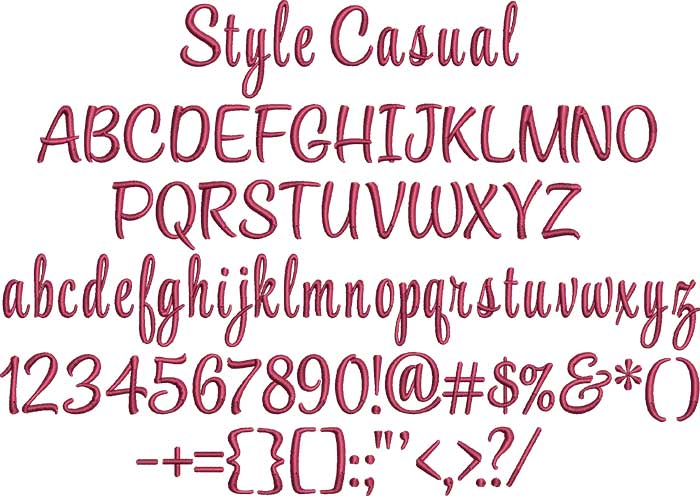
BX Embroidery Font: Style Casual
BX Embroidery Font: Style Casual (4 sizes) is a casual script machine embroidery font that includes A-Z, a-z, 0-9 and punctuation; 4 sizes.
BX Embroidery Font: Style Casual (4 sizes) is a casual script machine embroidery font that includes A-Z, a-z, 0-9 and the following punctuation: !@#$%&*()-+={}[]|:;”‘<>,.?/ (90 total characters per size). 4 sizes. Combines well with Style Endings.
Each character in this alphabet is individually manually digitized; we do not use a TrueType to Stitches conversion utility to create our fonts. Additionally, stitch attributes such as stitch type, density, compensation, and underlay are optimized for each size available. Choose the size closest to what you need. Shrinking the smallest size is not recommended.
Our fonts were manually digitized; we do not use a TrueType to Stitches conversion utility to create our fonts. Plus, stitch attributes such as density, compensation, and underlay are optimized for each size available.